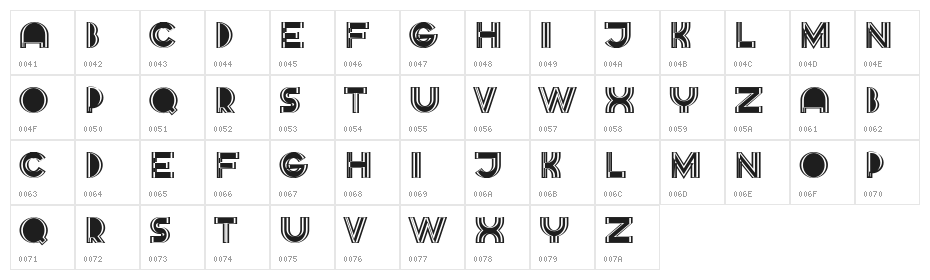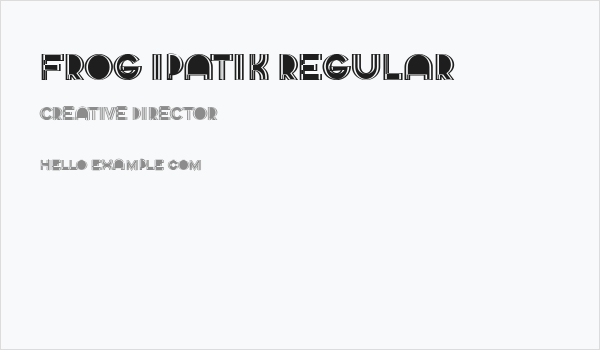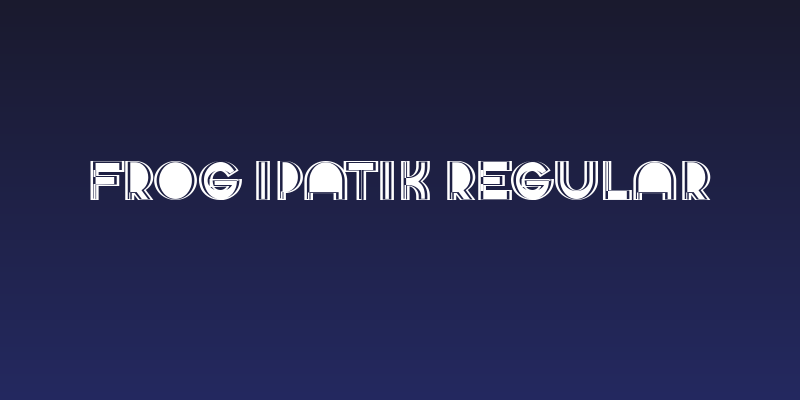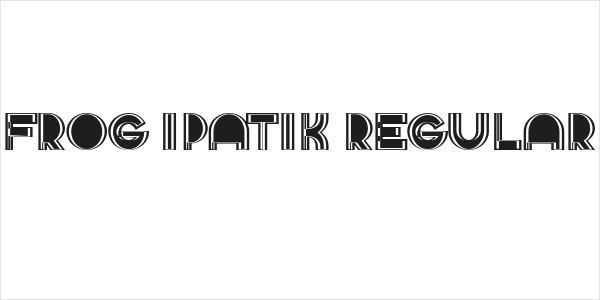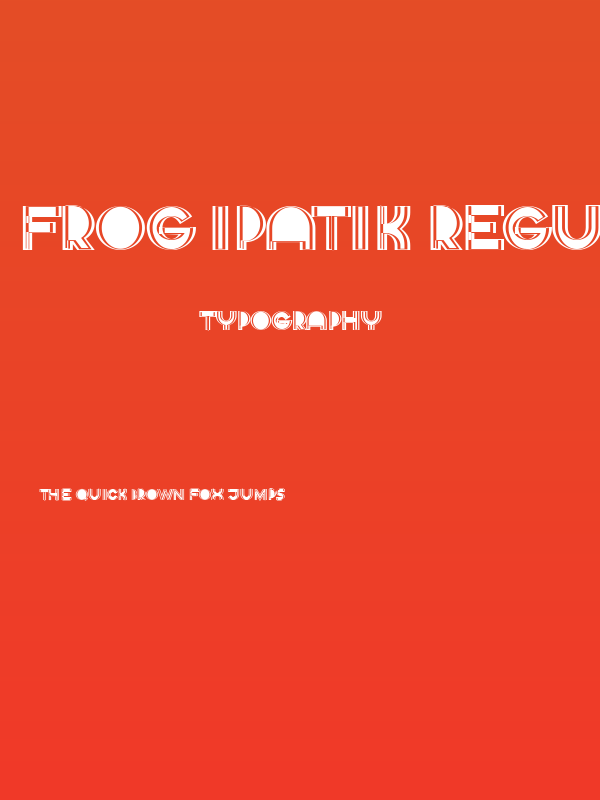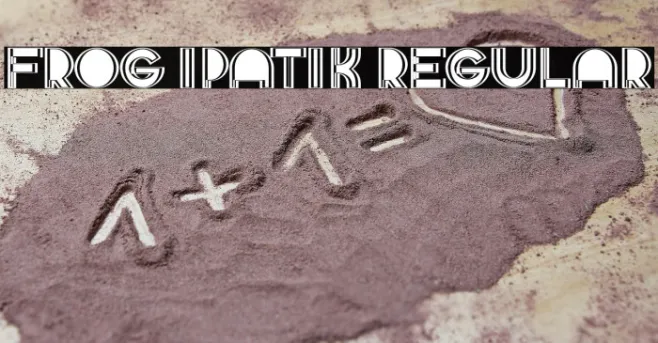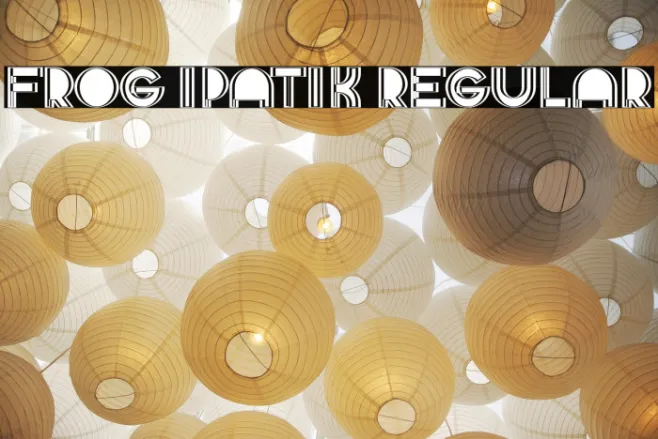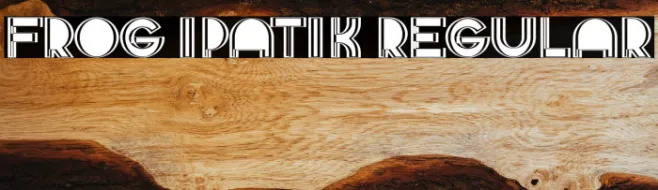
Frog Ipatik Regular Font
Frog Ipatik Regular Description
This font features a bold, geometric design with a strong emphasis on horizontal and vertical lines. The characters are constructed with a series of parallel lines, creating a layered effect that adds depth and dimension. The font has a modern, futuristic feel, with a unique style that stands out in any design. The uppercase letters are particularly striking, with their bold, blocky shapes and intricate detailing. The overall appearance is clean and structured, making it suitable for a variety of creative projects.
| Proposed Projects | Ideal for posters, logos, and branding projects that require a modern and eye-catching typeface. |